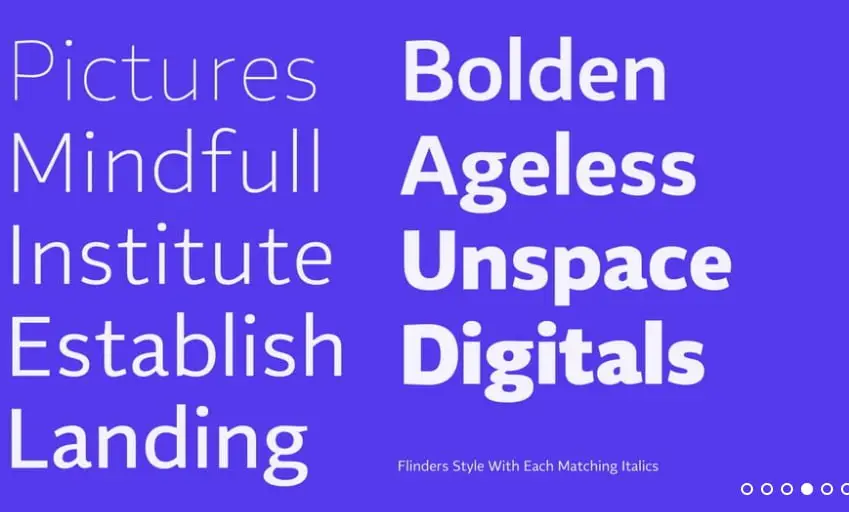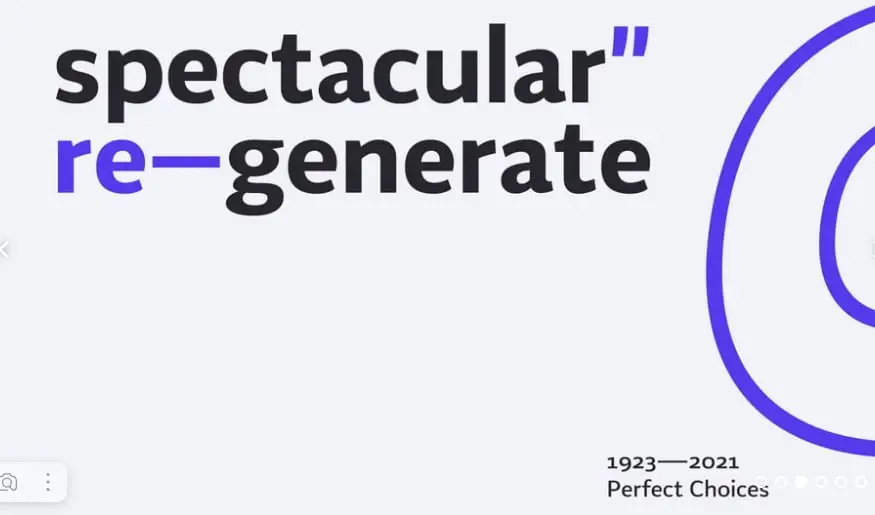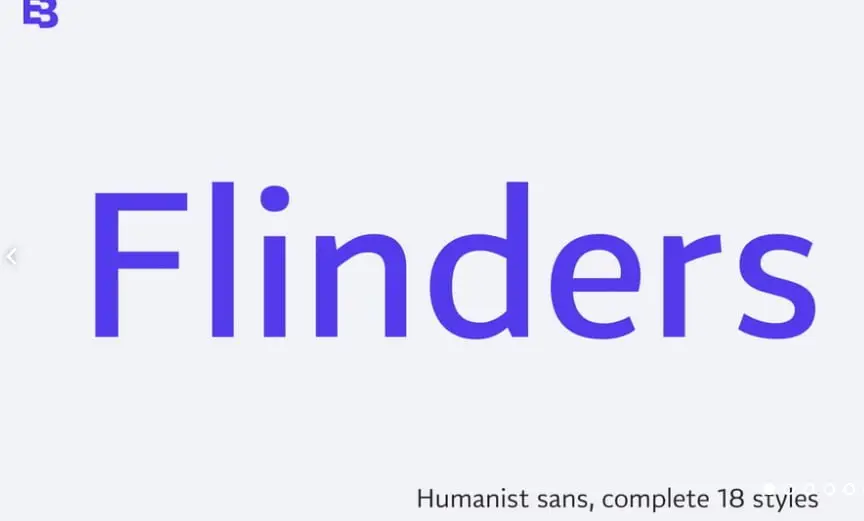
Flinders Typeface
The Flinders Typeface is a versatile and stylish font designed for a variety of applications. With its clean lines and modern aesthetic, it is perfect for branding, logos, web design, and print materials.
• Available in multiple weights for flexibility
• Includes uppercase and lowercase letters, numbers, and punctuation
• Style: Sans-serif
Utilize the Flinders Typeface for creating eye-catching headlines, elegant logos, and engaging web content. Its readability makes it suitable for both digital and print projects.